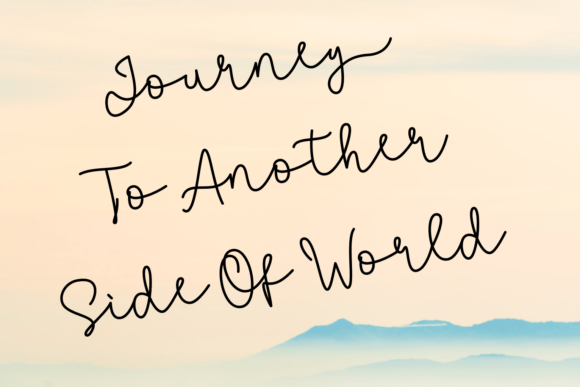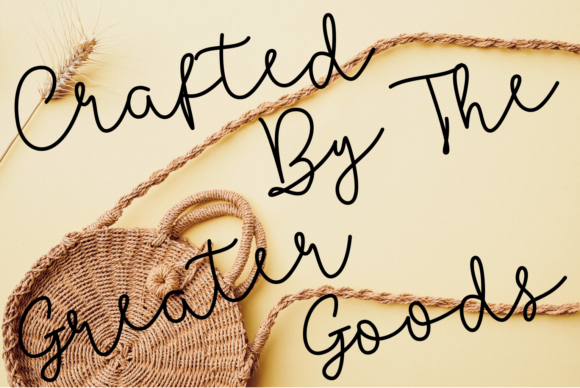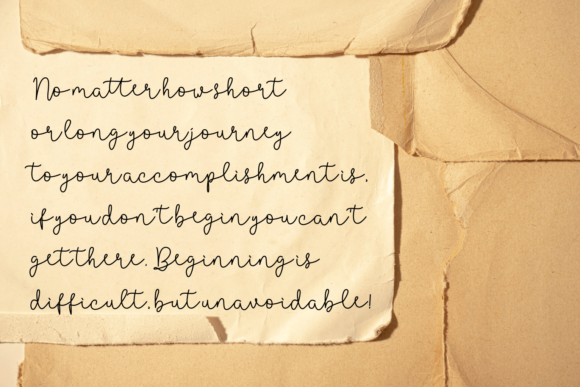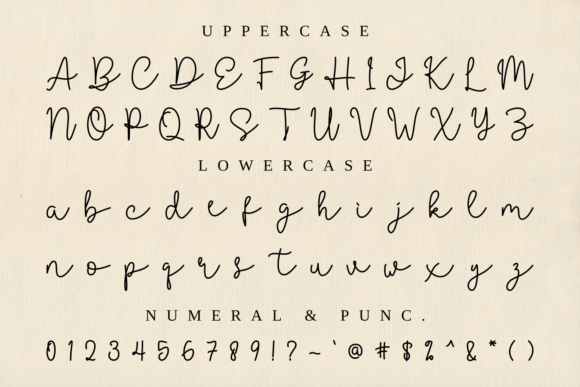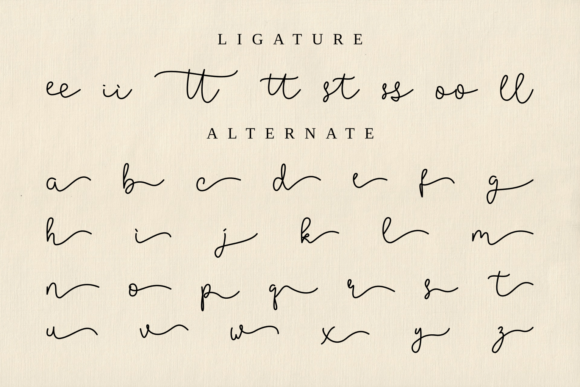
Introduction to Kratton Font
Kratton is a delicate, stylish and thin lettered script font.
This font is PUA encoded which means you can access all of the glyphs and swashes with ease Get inspired by its dainty touch and use this font to create lovely designs.
Key Features of Kratton Font